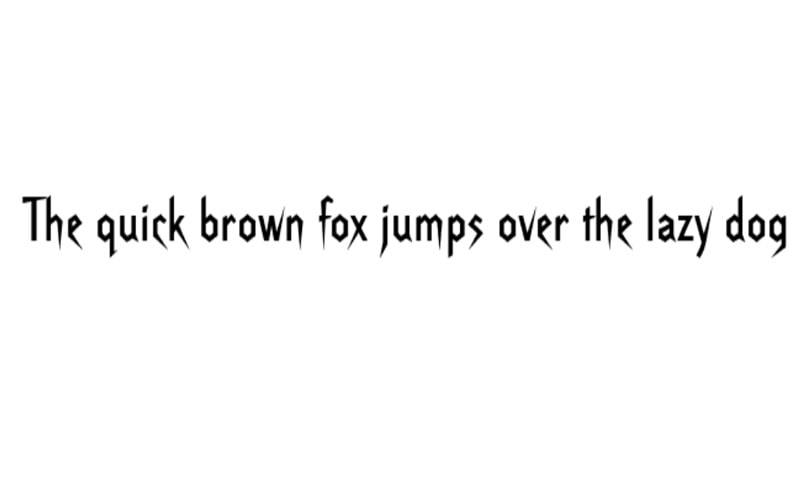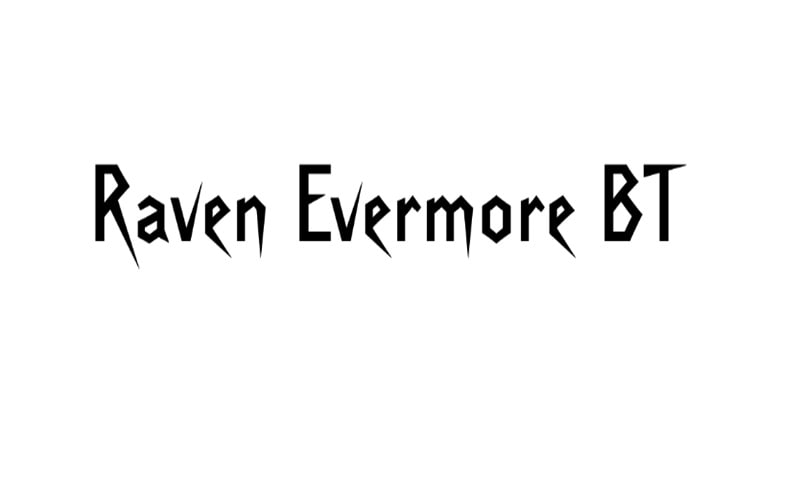
The Raven Evermore BT Font is a great serif and various typefaces designed by Holly Goldsmith in honor of the well-known poem by Edgar Allan Poe.
The subfamily of this font is regular and has complex Gothic-inspired letterforms with variations in normal, bold, and italic. The designers use this amazing font worldwide for their different projects.
This font is perfect for international projects since it supports a lot of languages with diacritics. More than just English, its adaptability makes it suitable for a wide range of global audiences.
You can use this font for branding, book covers, posters, and invites. Its Gothic design lends refinement and mystery to designs. it has 1000 units per em and normally features 200–400 glyphs, including numbers, uppercase and lowercase characters, etc.
Raven Evermore BT Font
When this font is combined with serif fonts such as Times New Roman or Garamond, it creates a sophisticated but timeless look. On the other hand, it looks even more Gothic when combined with contemporary sans-serif typefaces.